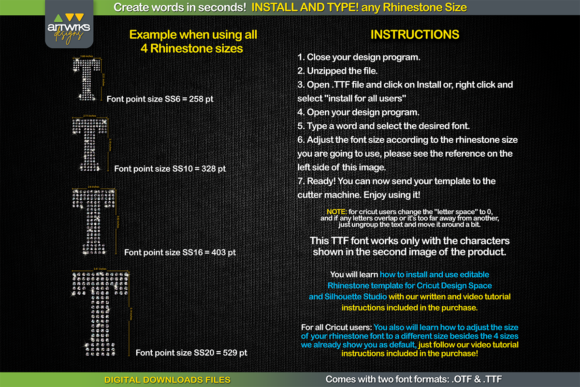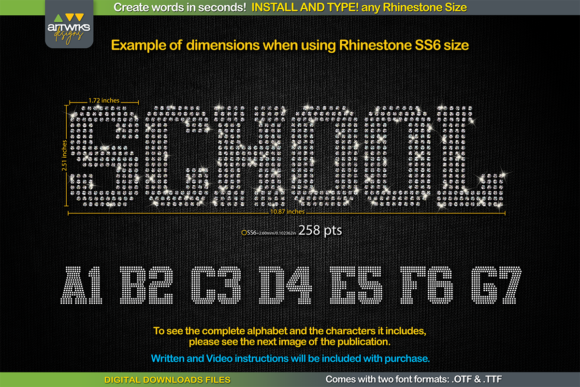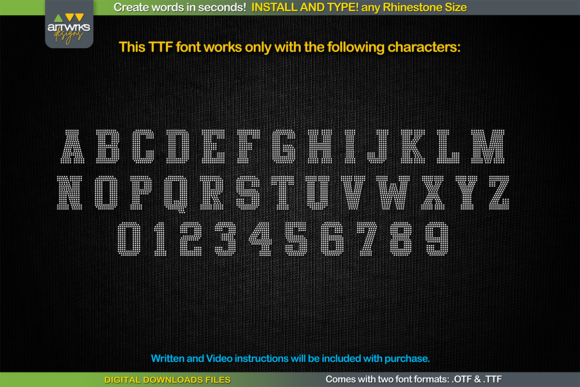
RS02 Atletico TTF RHINESTONE Template
RS02 Atletico TTF RHINESTONE Template: A Versatile Rhinestone Font
RS02 Atletico TTF RHINESTONE Template is a unique font designed for creating rhinestone designs quickly and easily. Simply install and type to create words with perfectly arranged rhinestone patterns in seconds.
Key Features of RS02 Atletico TTF RHINESTONE Template
• Easy-to-Use: Create rhinestone designs by simply typing.
• Multiple Sizes: Adjustable for different rhinestone sizes.
Ideal Uses for RS02 Atletico TTF RHINESTONE Template
This font’s unique characteristics make it particularly well-suited for:
When using RS02 Atletico TTF RHINESTONE Template, consider these tips:
• Adjust font size according to your desired rhinestone size.
• Experiment with different rhinestone sizes for varied effects.
• Use contrasting background colors to make designs stand out.
• Consider the material you’re working with when choosing rhinestone size.
RS02 Atletico TTF RHINESTONE Template is an excellent tool for designers and crafters looking to create professional rhinestone designs quickly and easily. Its versatility and ease of use make it stand out in the world of specialty fonts. Whether you’re working on custom apparel, promotional items, or personalized gifts, this font offers a perfect blend of functionality and style.
Furthermore, RS02 Atletico’s unique design allows it to shine in various contexts. From sports team merchandise to fashion accessories, this font can elevate your projects with its distinctive rhinestone patterns. Its adaptability to different rhinestone sizes ensures that it can meet a wide range of design needs.
In conclusion, RS02 Atletico TTF RHINESTONE Template is a font that truly captures the essence of easy and professional rhinestone design creation. Its ability to work well across various platforms and design software showcases its versatility. For those looking to add a touch of sparkle to their work, this font can enhance themed creations with its unique style. It’s the perfect choice for designers and crafters seeking to make a dazzling impact across a wide range of creative projects.